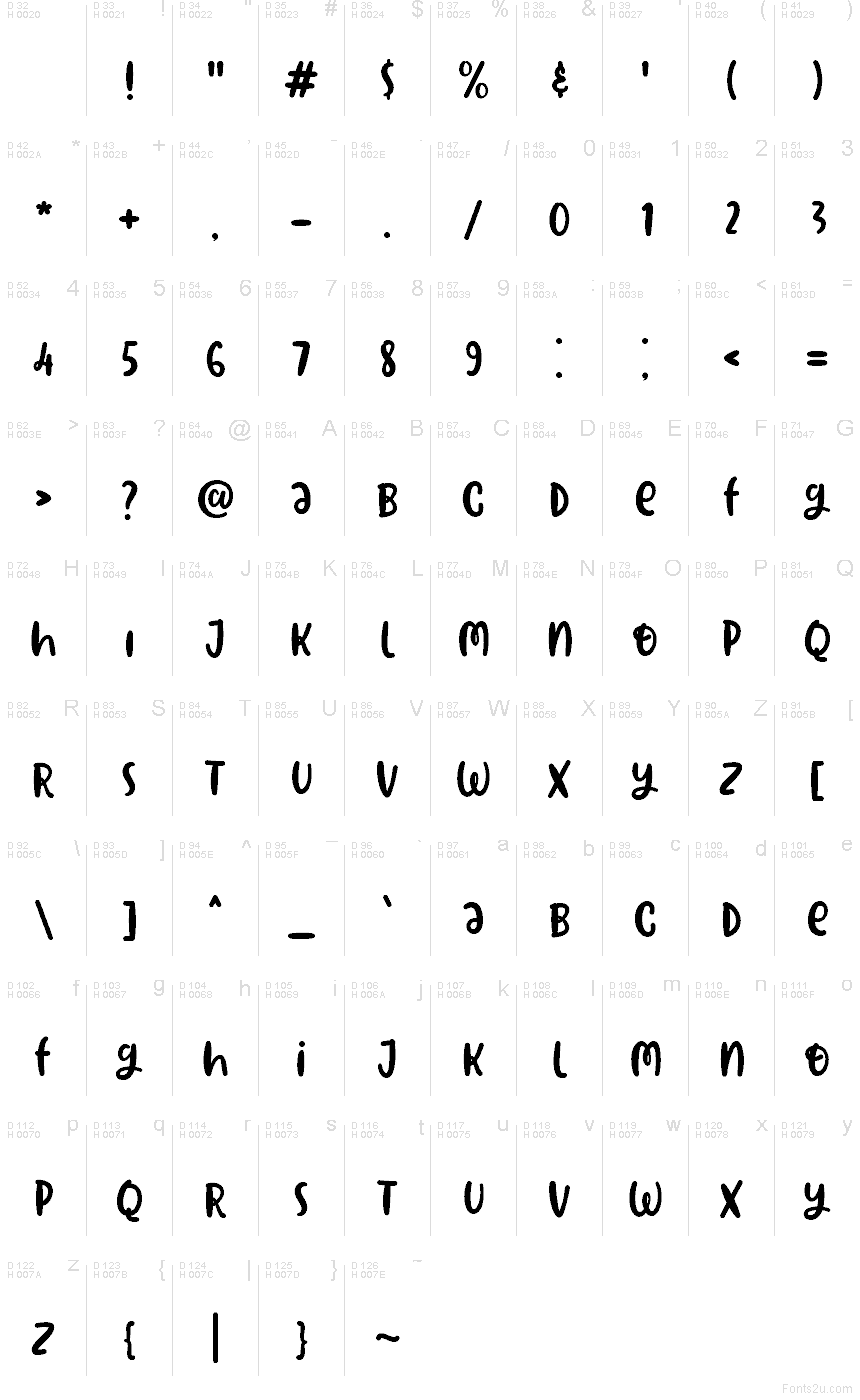
Hello Yellow font by DM Letter Studio - Dimas Prasetyo is a free brush script typeface with a big, inky smile. Thick, rounded strokes and bouncy letterforms give it that hand-painted feel-like marker on glossy card-without ever getting messy or hard to read. The rhythm is lively but consistent, so you get playful energy that still holds together in longer words and short phrases.
Using Hello Yellow, you can instantly brighten greeting cards, kids’ packaging, Instagram posts, quote posters, café or bakery logos, stickers, and fun merchandise. This free font shines when you set it large and let those chunky curves breathe; pair it with a clean, light sans serif for small print or details to keep everything legible and fresh.